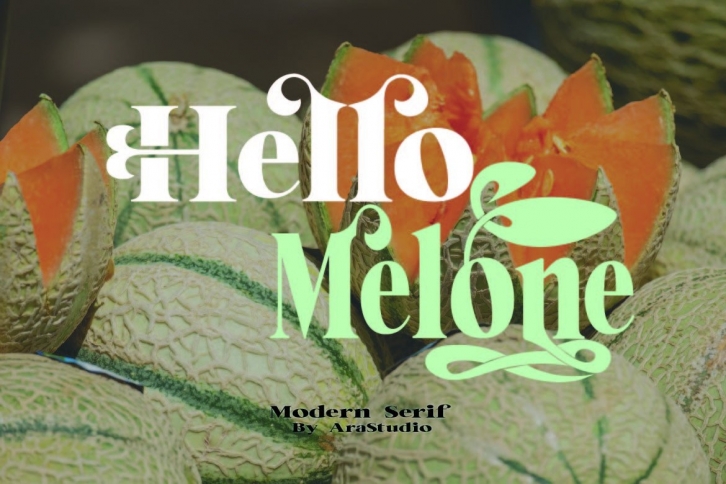
Hello Melone is a stylish and fashionable serif font. Use this gorgeous typeface to create unique, chic designs. This font is PUA encoded which means you can access all of the glyphs and swashes with ease!